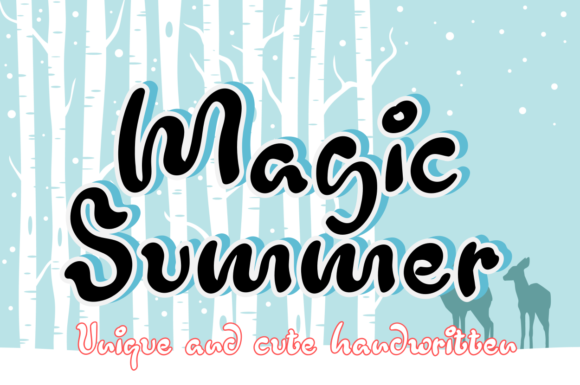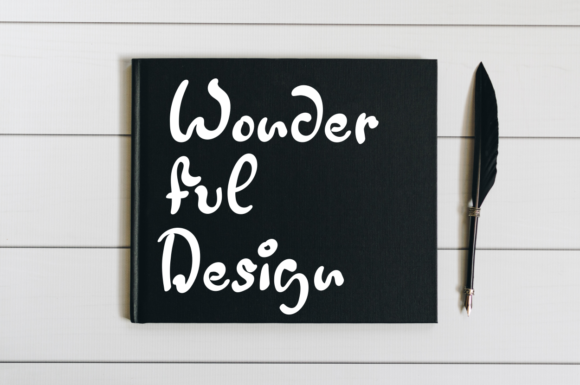
About Magic Summer Font
Magic Summer is a charming and whimsical handwritten font that adds a touch of playfulness and joy to your designs. With its lively letterforms and delightful style, this font is perfect for a variety of creative projects.
When it comes to crafting, Magic Summer brings a sense of fun and creativity to your DIY projects. Whether you’re creating handmade cards, scrapbooking, or designing personalized gifts, the font’s playful and cute look adds a touch of magic to your creations. Its handwritten appearance gives your crafts a unique and personal feel, making them even more special.
In digital designs, Magic Summer adds a vibrant and lively touch to your visuals. Whether you’re designing social media graphics, digital artwork, or presentations, this font injects a sense of whimsy and imagination into your designs. Its unique letterforms and energetic characters catch the eye and create a cheerful atmosphere.
Presentations also benefit from the playful and cute nature of Magic Summer. Whether you’re presenting to a professional audience or sharing information with friends and family, this font adds a touch of warmth and positivity to your slides. Its friendly and inviting style helps to engage your audience and make your content more memorable.
Greeting cards and invitations come to life with the help of Magic Summer. Whether you’re designing birthday cards, party invitations, or thank-you notes, this font sets a joyful and festive tone for your messages. The font’s playful letterforms and whimsical style create an atmosphere of celebration and excitement, making your cards and invitations stand out.
In summary, Magic Summer is a playful and cute handwritten font that brings a sense of joy and imagination to your designs. Whether you’re crafting, digital designing, creating presentations, or making greeting cards, this font adds a touch of magic and creativity to your projects. Enjoy the whimsical and lively vibe of Magic Summer as you create delightful and memorable designs.